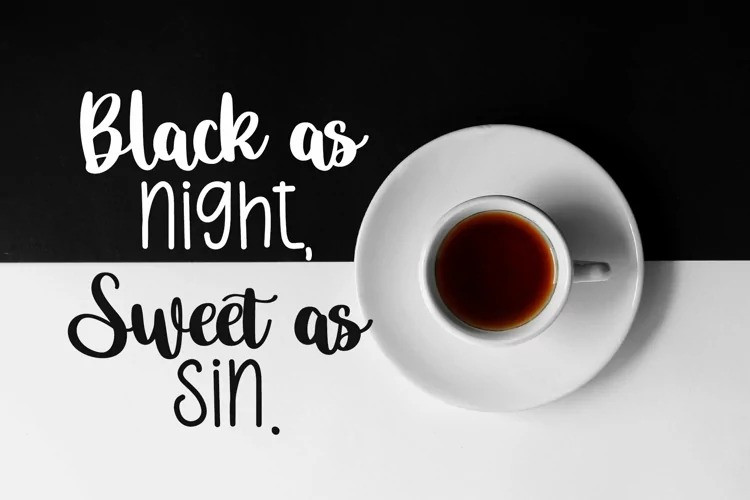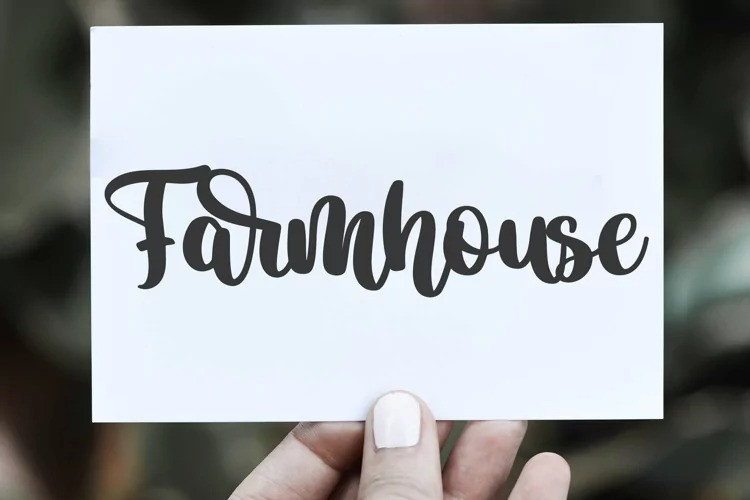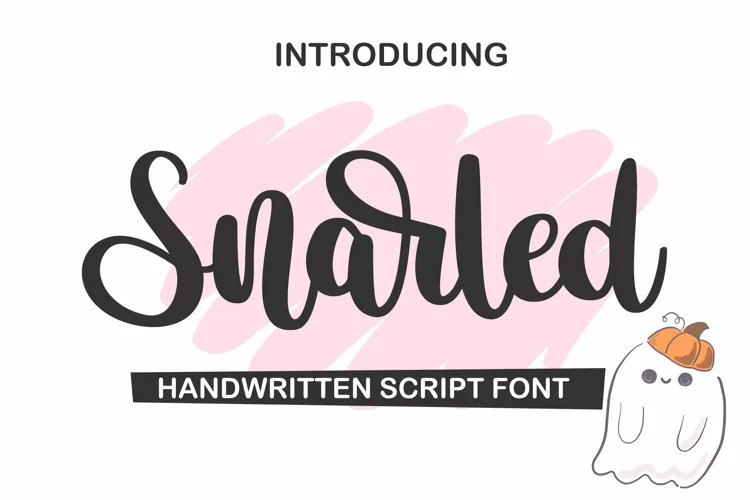
Snarled Font
Snarled Font is a lovely script font featuring charming, playful characters that seem to dance along the baseline. Add this font to your most creative ideas, and notice how it makes them stand out!